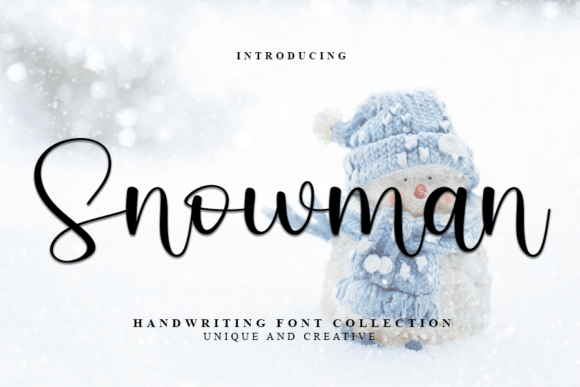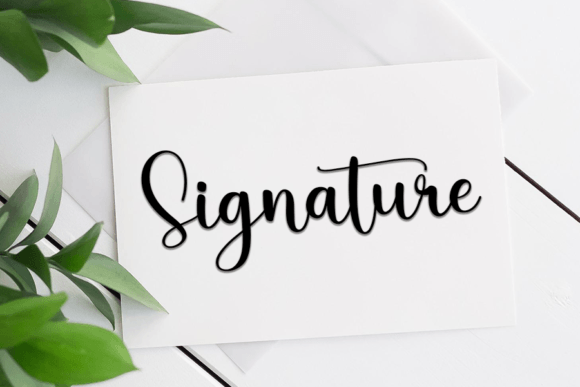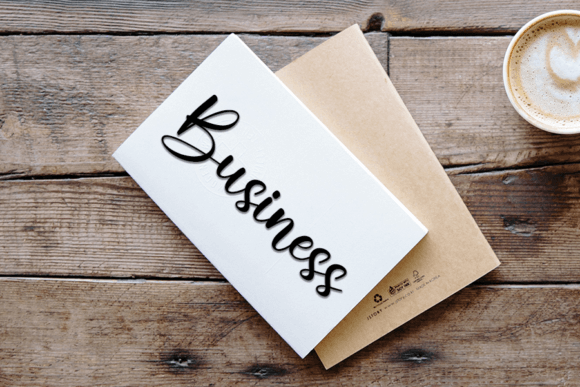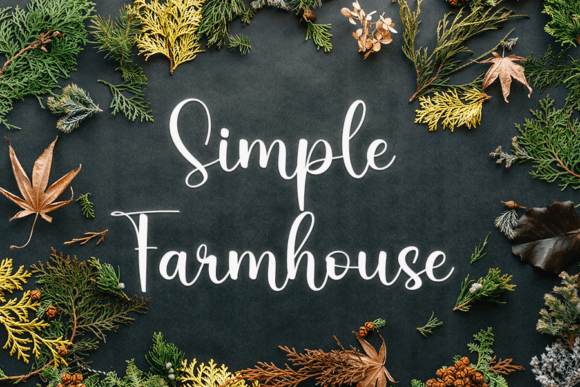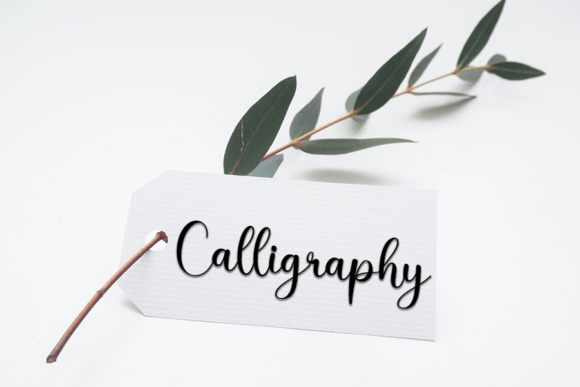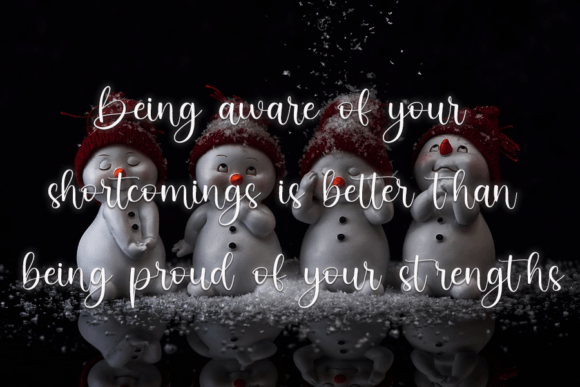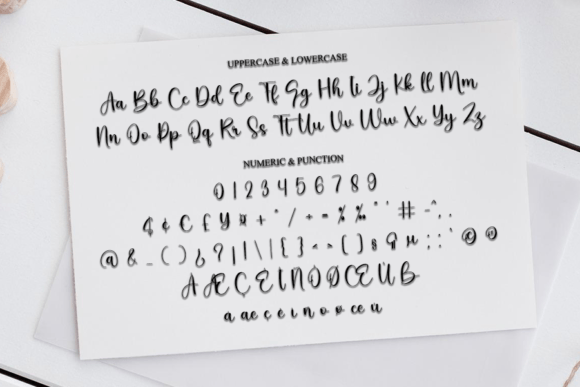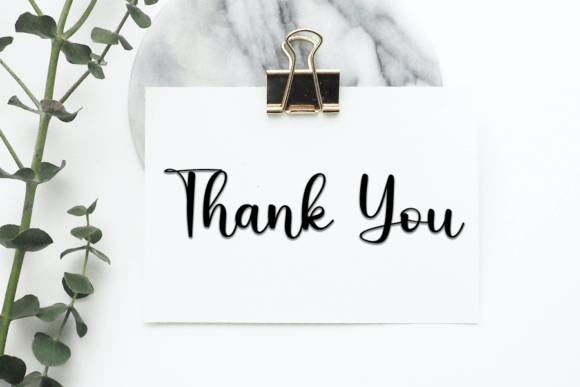
Snowman Font
Add a delicate and unique touch with the Snowman font. This handwritten script is carefully crafted to bring a cool and charming style to your creative projects. It is perfect for writing letters, invitations, food product packaging, titles, and much more.
The Snowman font is versatile and ideal for a wide range of design applications. Whether you’re working on branding, social media posts, packaging, or decorative projects, this font adds elegance and personality.
Each character is designed with gentle strokes that create a polished yet approachable look. The font balances readability with artistic flair, making it suitable for headlines, quotes, logos, and decorative text.
Despite its delicate style, the Snowman font remains highly readable at various sizes. Whether used for bold titles or subtle accents, it adapts perfectly. Its flexibility makes it a great choice for many creative projects.
Using this font will help your designs stand out. It adds a unique and refreshing vibe. If you want your work to look elegant and memorable, the Snowman font is an excellent choice.
In summary, the Snowmanfont fits many design needs. From letters and invitations to product packaging and titles, it brings charm and sophistication. Download it today and create stunning, delicate designs with a unique handwritten script.